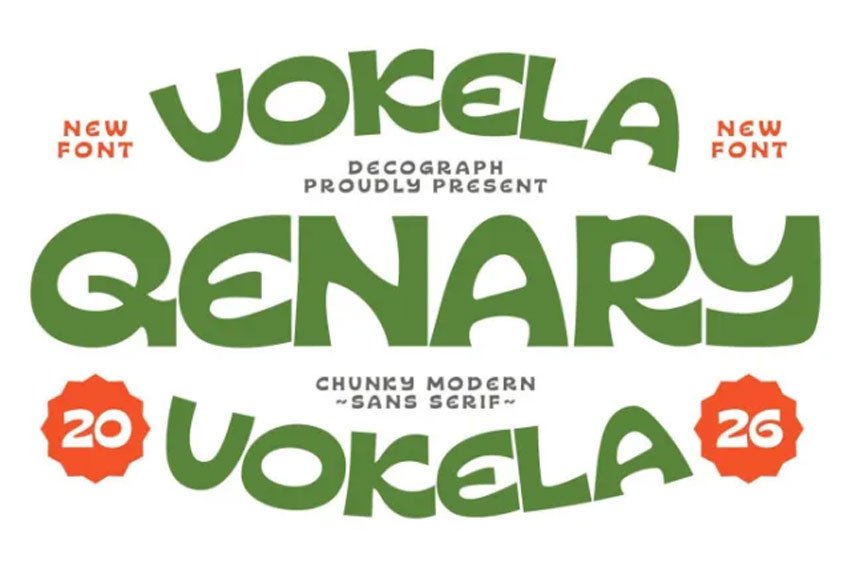
Qenary Vokela Font Chunky Modern Sans Serif Font is a bold typeface designed with thick shapes and smooth rounded curves. Its chunky structure and soft geometry create a playful yet modern personality that feels friendly, confident, and highly eye-catching. The balanced proportions make it strong for display while maintaining clarity and readability.
Perfect for bold and contemporary design projects, this font works beautifully in branding and large-scale typography. Whether used for logos, posters, packaging, or social media graphics, Qenary Vokela delivers a fresh and modern visual presence with a fun twist.